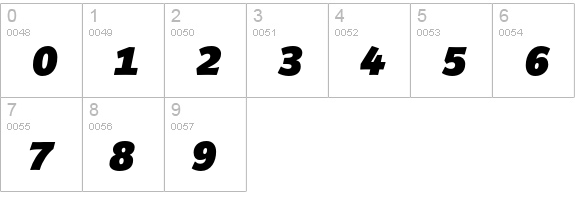
Giacomo MD Black Italic is a maximum-weight, dramatic, italic variant in the Giacomo typeface family \xE2\x80\x94 well suited to maximum-impact headlines, posters, and packaging.
The Giacomo MD Black Italic font exudes elegance and sophistication with its sleek and modern design. Its striking italic style adds a touch of flair to any project, making it perfect for conveying a sense of luxury and refinement. The bold black weight commands attention while maintaining a sense of refinement. This versatile font is ideal for a wide range of design projects, from branding and advertising to packaging and editorial design. Its clean lines and distinctive curves make it a standout choice for those seeking a font that is both stylish and professional. Best of all, Giacomo MD Black Italic is available for free download at FontsMarket.com. This means you can easily access this high-quality font without any cost, making it a valuable addition to your font library. Don't miss out on the opportunity to elevate your designs with the Giacomo MD Black Italic font today.